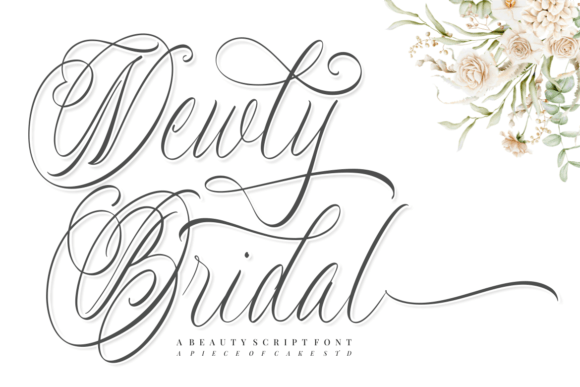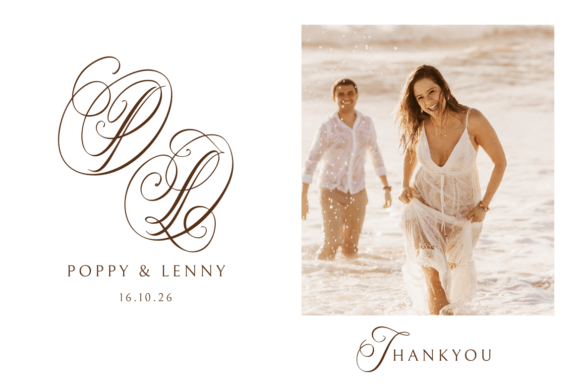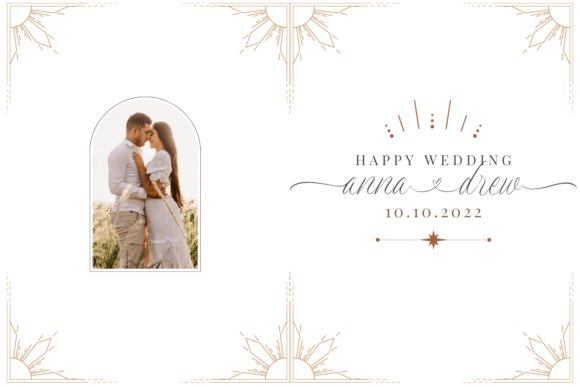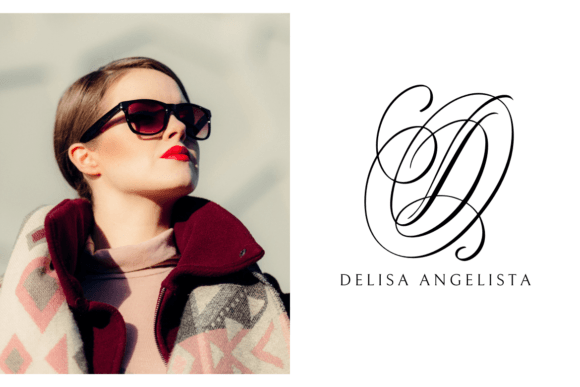
Newly Bridal Font
About the Newly Bridal Font
We are excited to introduce Newly Bridal Font, a must-have typeface for any serious designer. Newly Bridal is a beautiful script font carefully created with a touch of elegance. Whether you’re looking for fonts for wedding themes, instagram or calligraphy scripts for DIY projects, this font will turn any creative idea into a true piece of art! This font is PUA encoded which means you can access all of the glyphs and swashes with ease!
Newly Bridal’s elegant script style is ideally suited for wedding invitations, stationery, and other romantic projects. It works exceptionally well in headlines, short quotes, and logos where its refined details shine. However, its ornate nature makes it less suitable for body text or UI elements requiring high readability. Avoid using it for large blocks of text.
This font pairs beautifully with clean sans-serif fonts like Lato or Montserrat for a modern contrast, or with a classic serif like Garamond or Playfair Display for a more traditional feel. A simple geometric sans-serif could also provide a striking counterpoint, enhancing its delicate flourishes.
The overall personality of Newly Bridal is sophisticated and romantic, conveying a sense of refined charm and timeless elegance. Its graceful curves and delicate swashes are perfect for brands aiming for a luxurious or sentimental aesthetic.
Newly Bridal Font Example